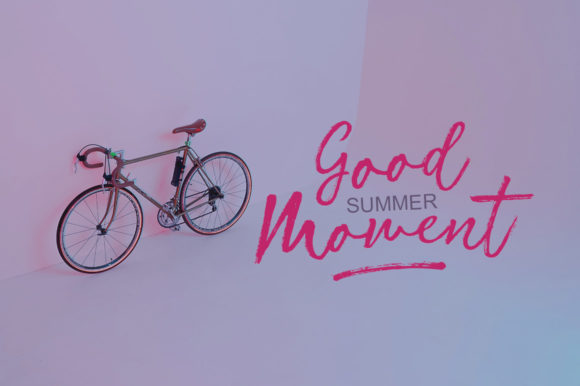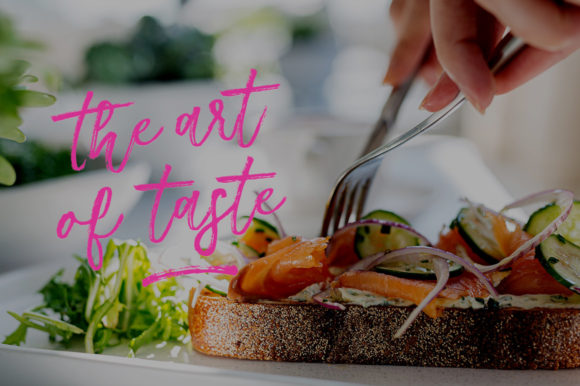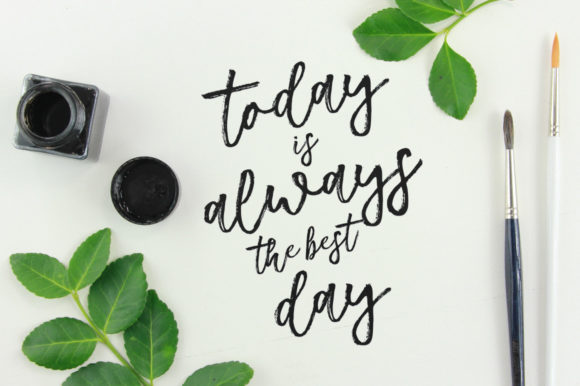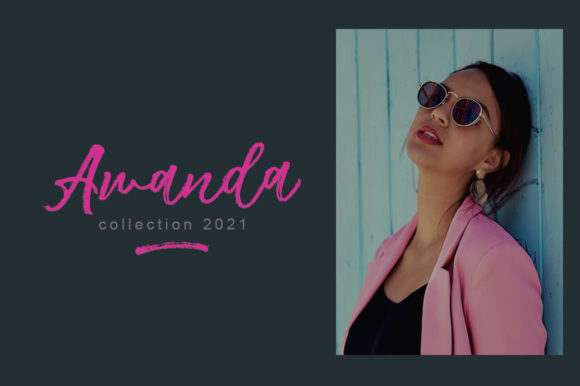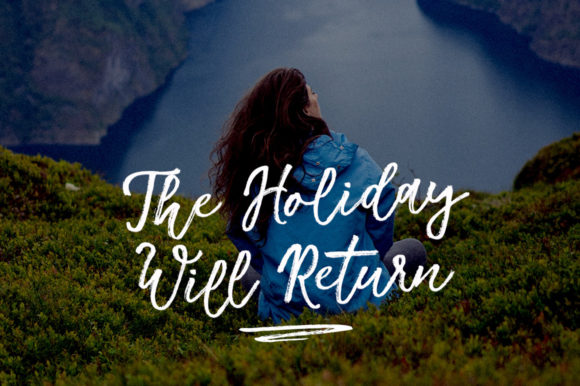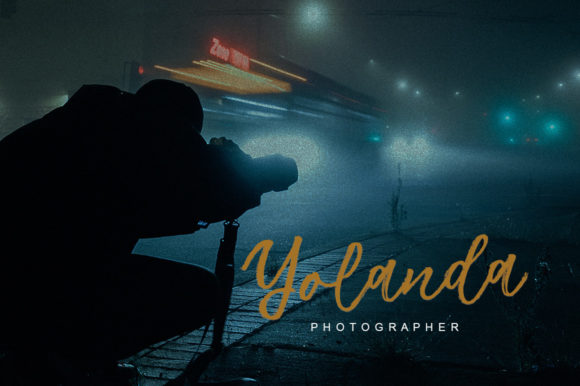
Anstolina Font
Annstolina is a flowing and stylish handwritten font that can take any creative project out of the ordinary! Use it for wedding invitations, birthday cards, thank you notes, marketing materials, and more.